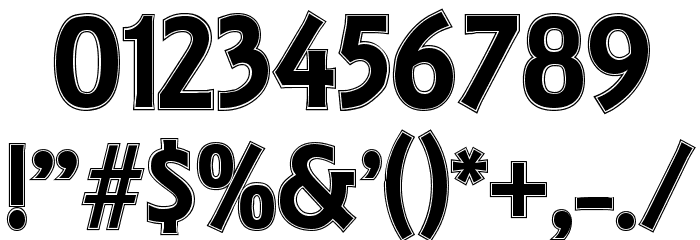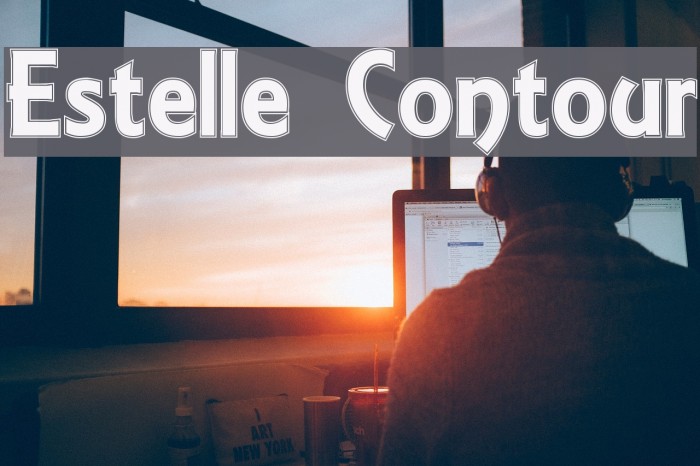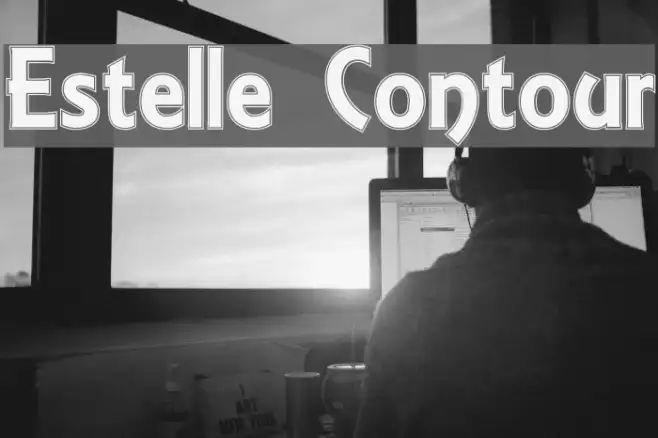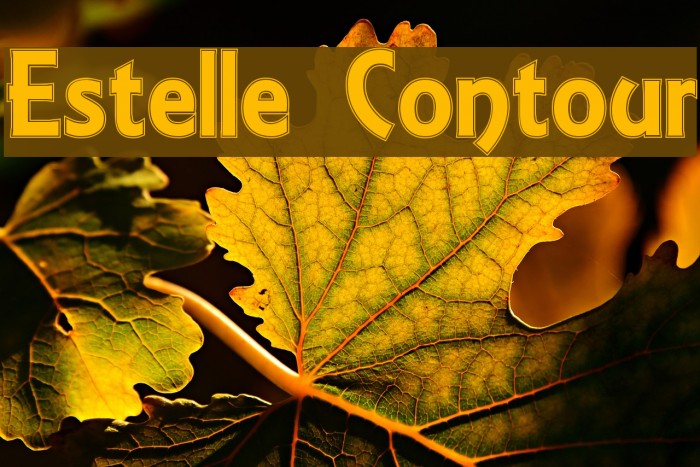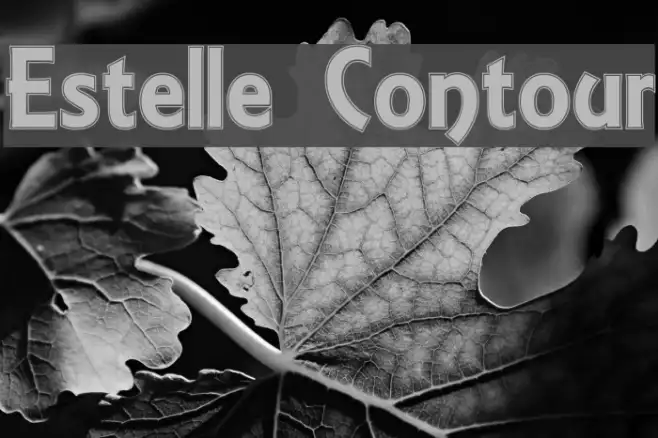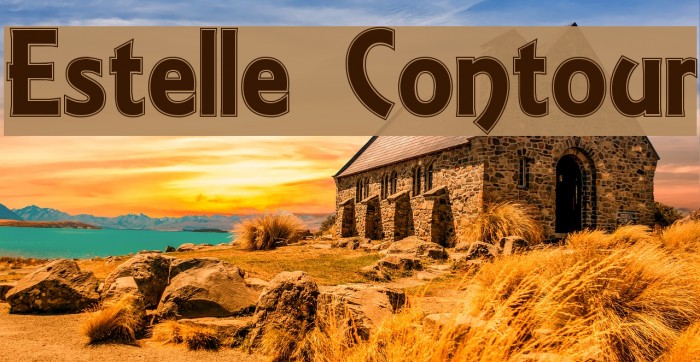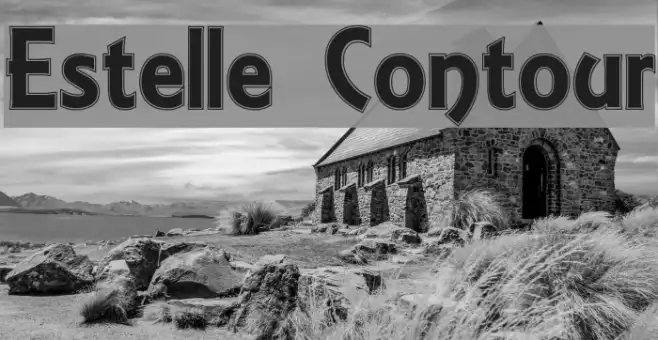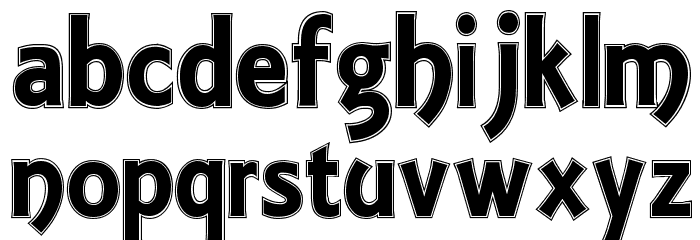
Estelle Contour Font
Estelle Contour Description
This font features a bold, striking design with a distinct contour effect that gives each character a three-dimensional appearance. The uppercase letters are robust and commanding, while the lowercase letters maintain a consistent style, offering a harmonious blend of strength and elegance. The numbers are equally bold, ensuring readability and impact. Special characters are crafted with the same attention to detail, making them stand out. The overall design is modern yet retains a classic touch, making it versatile for various applications.
| Proposed Projects | Ideal for headlines, posters, branding, and any project requiring a strong visual impact. |